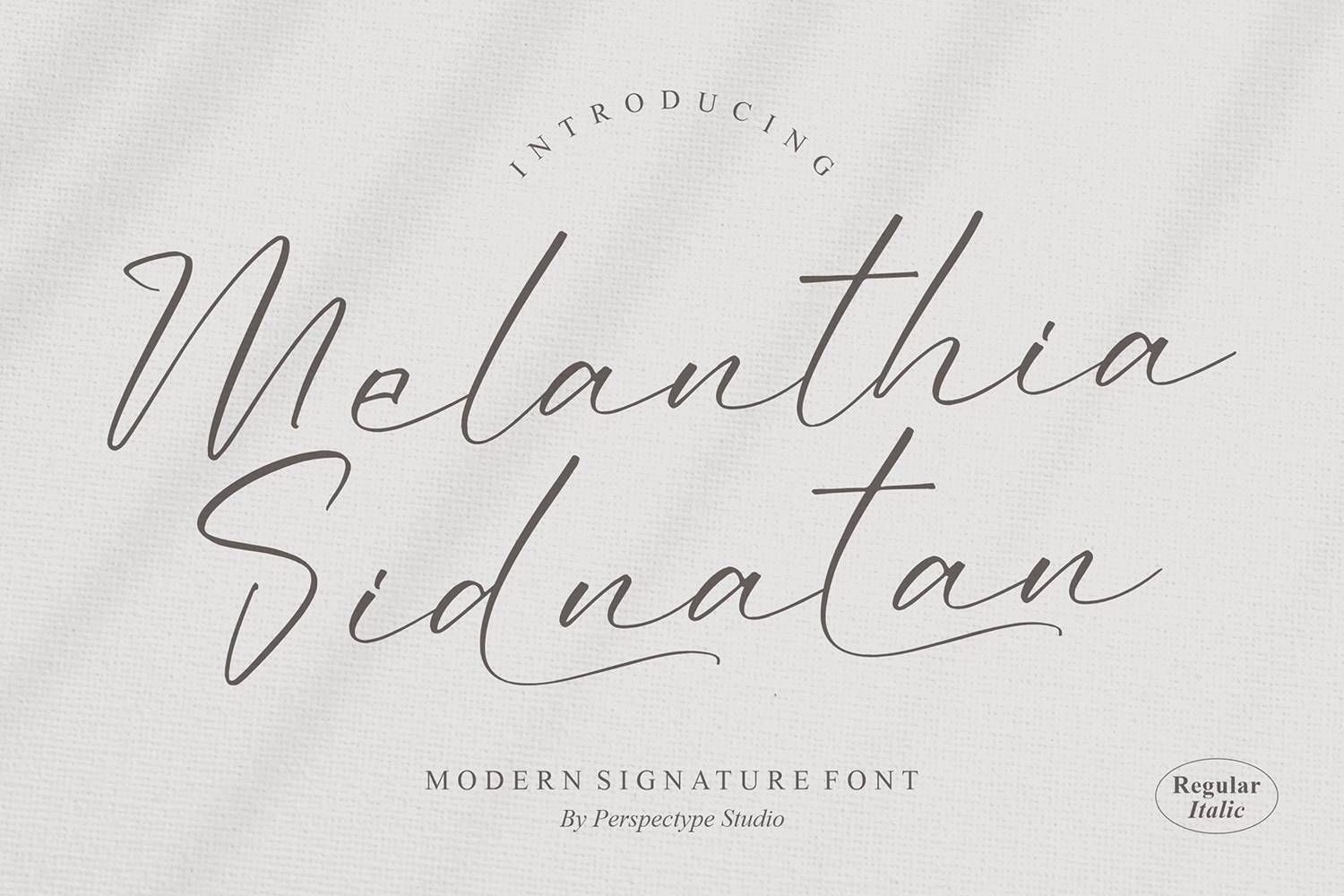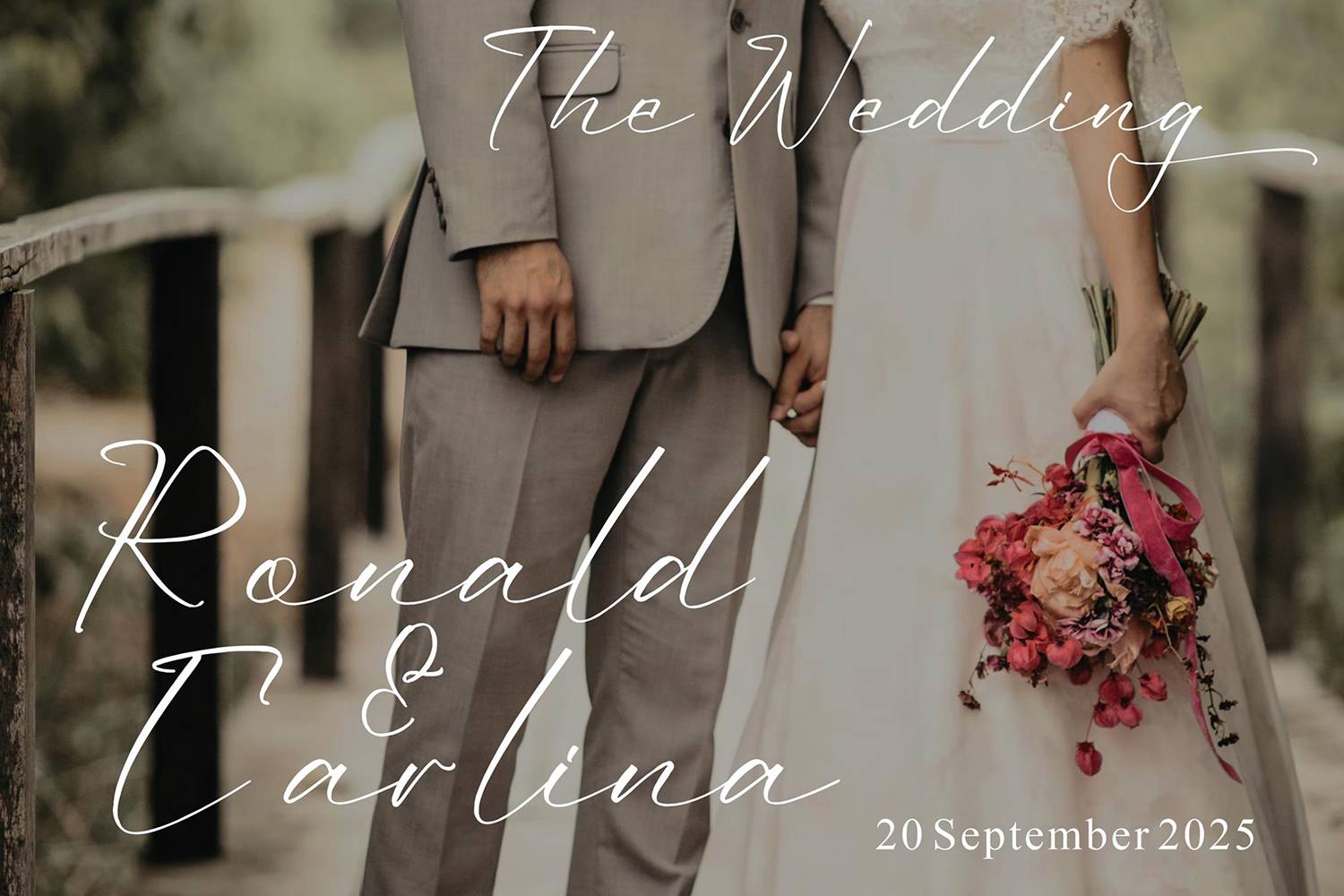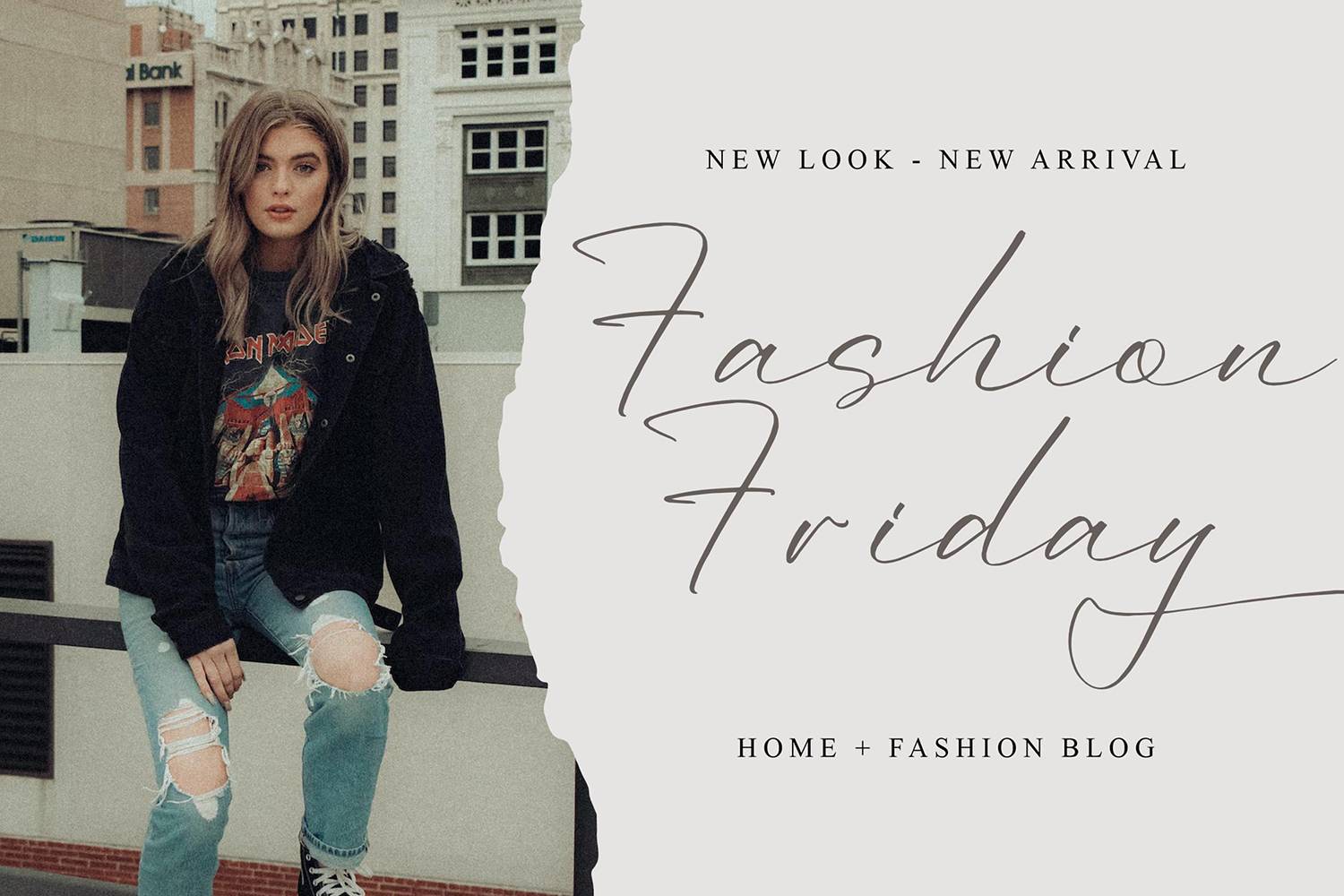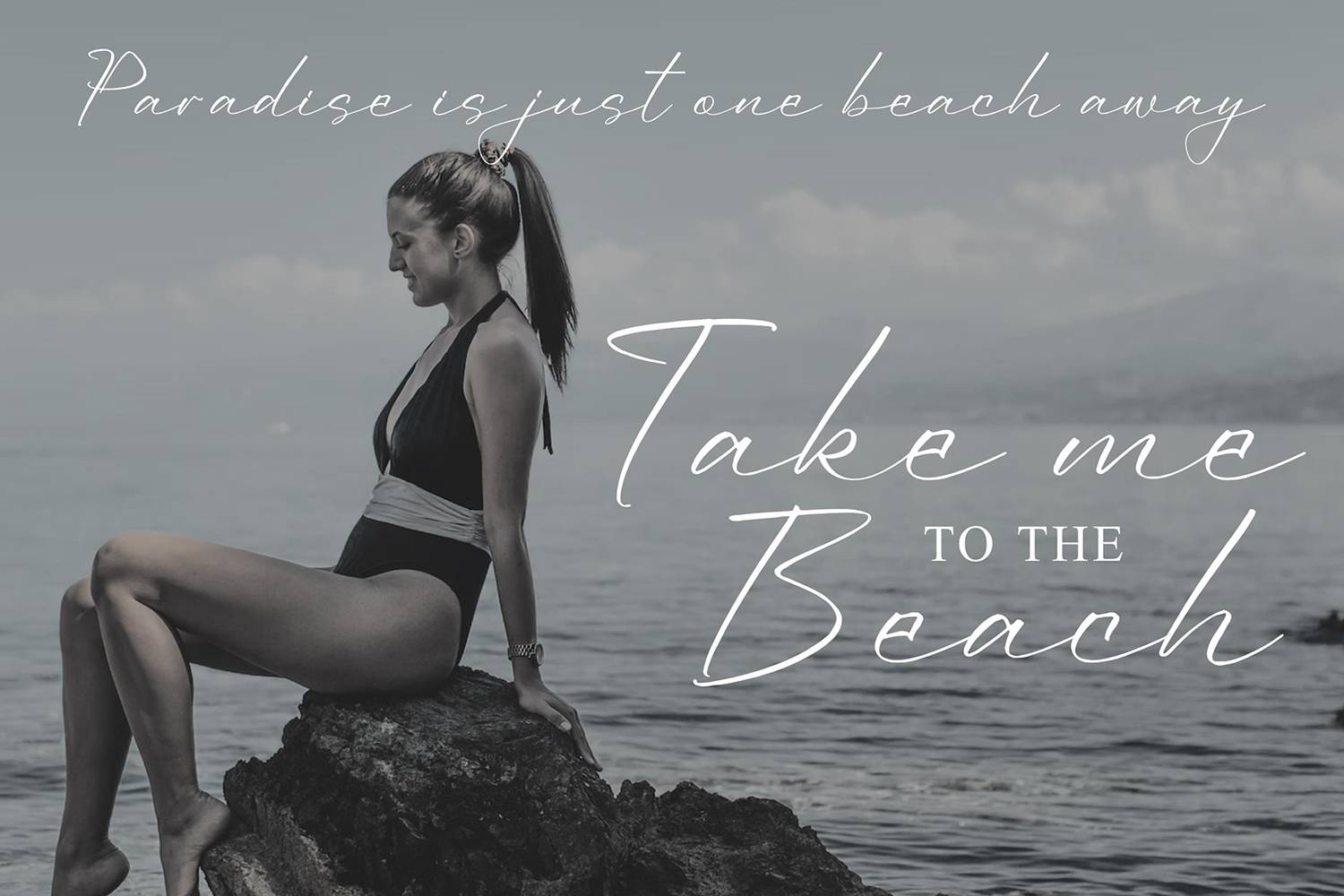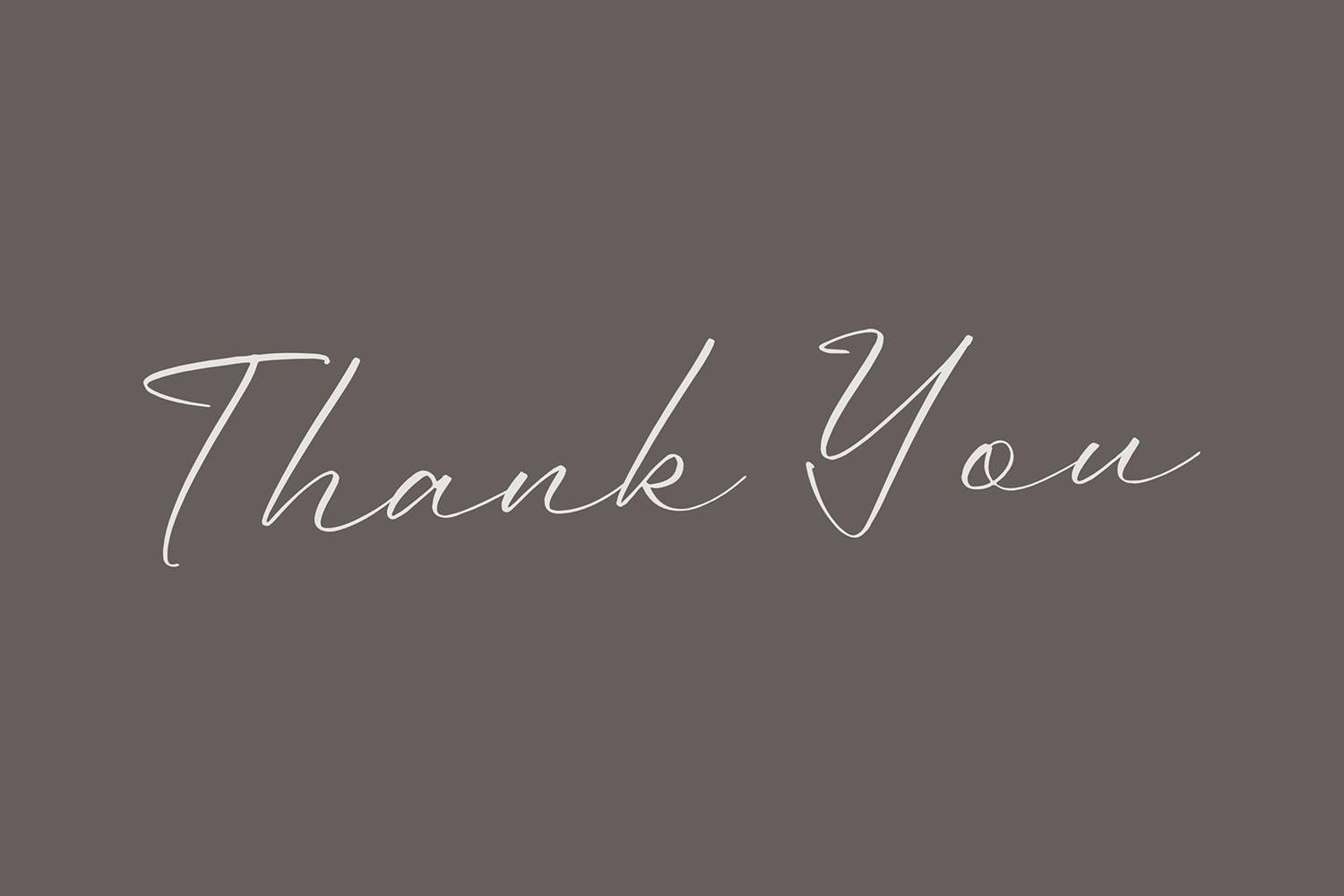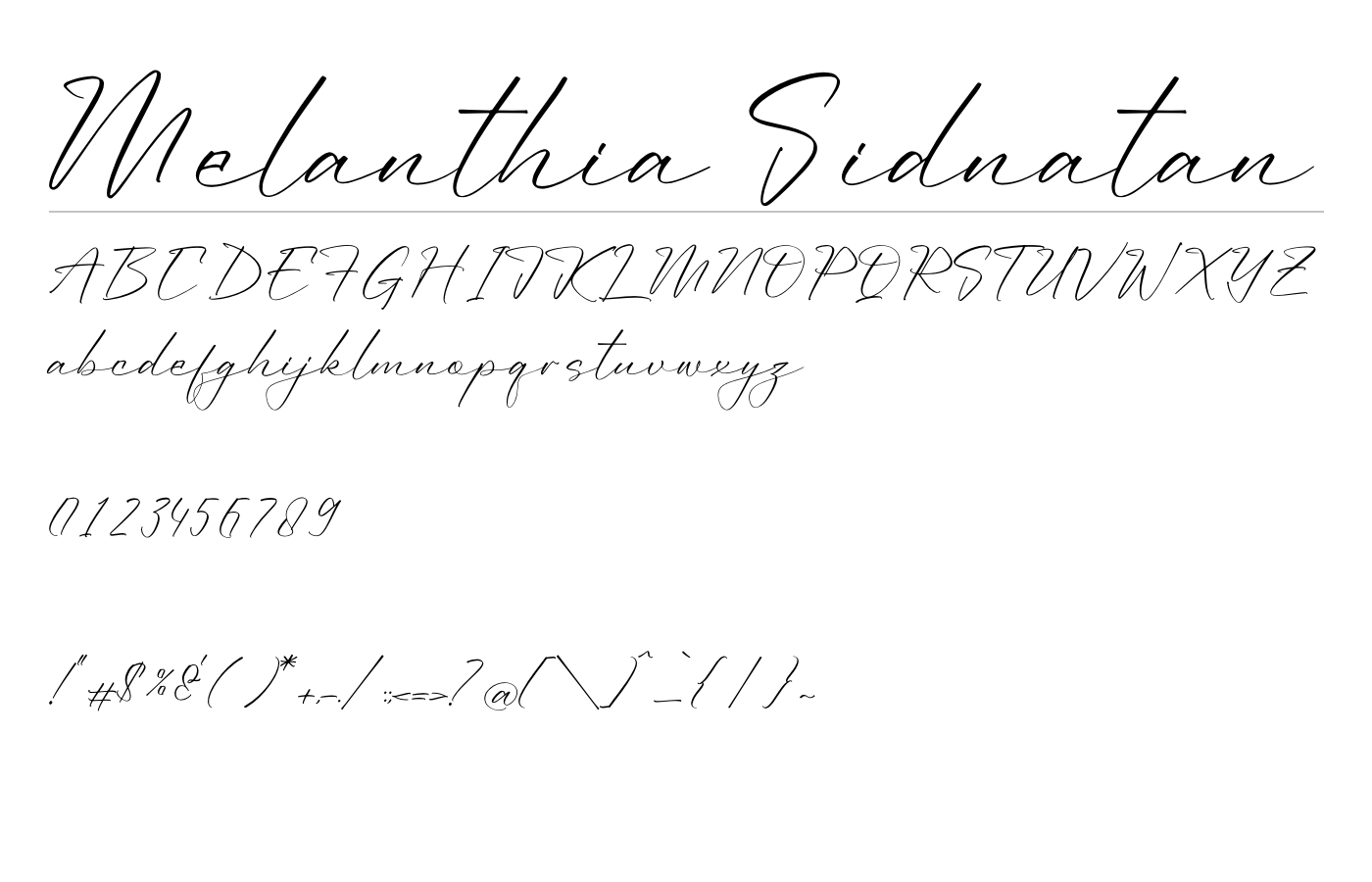
Melanthia Sidnatan is an elegant, thin script font with a delicate and flowing handwritten style. Its slender strokes and refined letterforms give it a graceful and sophisticated personality, making it perfect for wedding invitations, luxury branding, and editorial use where a touch of subtle elegance is desired. This font works beautifully in headlines and decorative text, adding a personal yet polished feel to designs.
Melanthia Sidnatan Font
About Melanthia Sidnatan Font